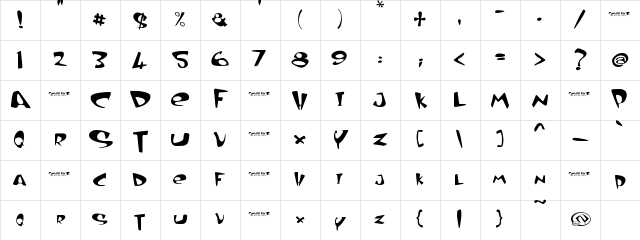
Complete Curved air Regular glyph index. Displaying only characters natively supported by Curved air Regular font.
Curved air is a composed and adaptable typeface that performs quietly and consistently across a wide range of design contexts.